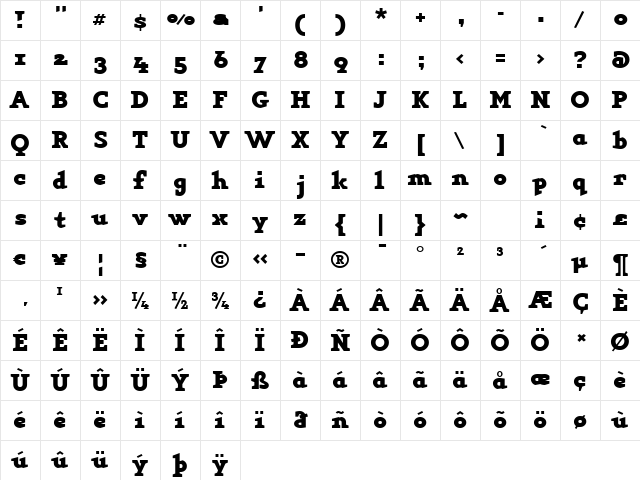
KeyBold Regular
Design Context for KeyBold Typeface
KeyBold takes a measured approach to typography — its balanced proportions and neutral character make it a reliable workhorse for both digital and print work. The heavy weight commands attention and anchors typographic hierarchies.